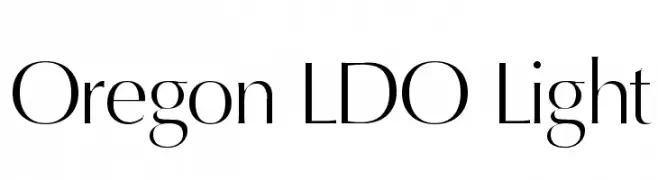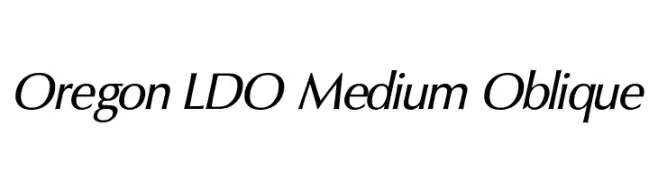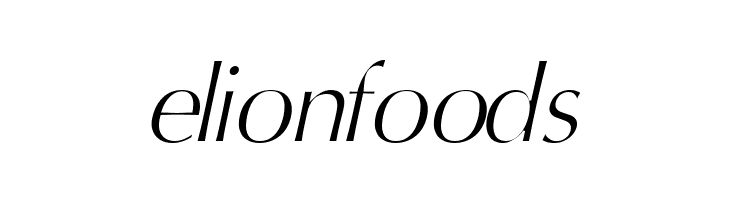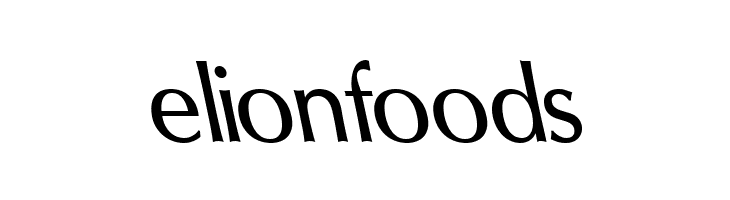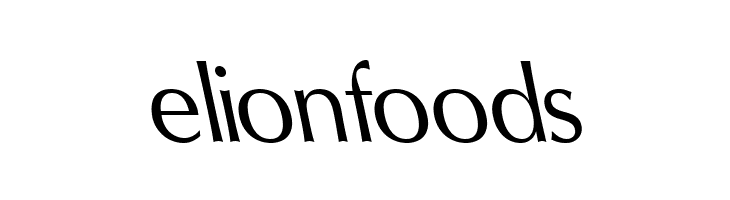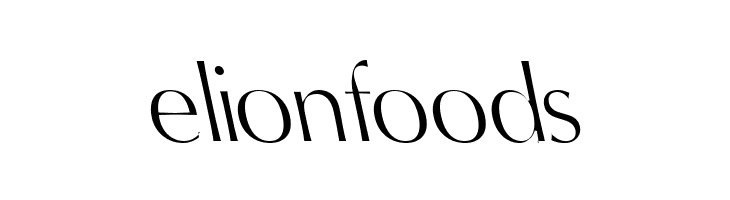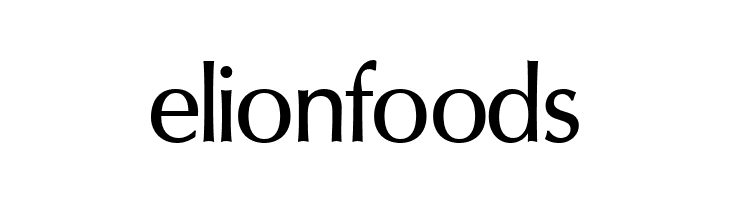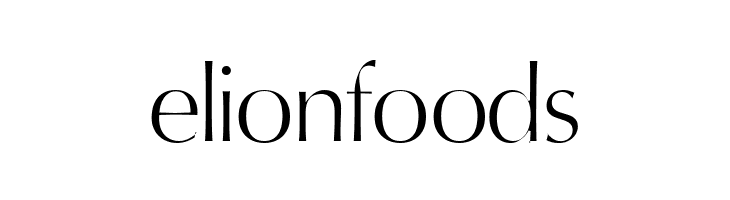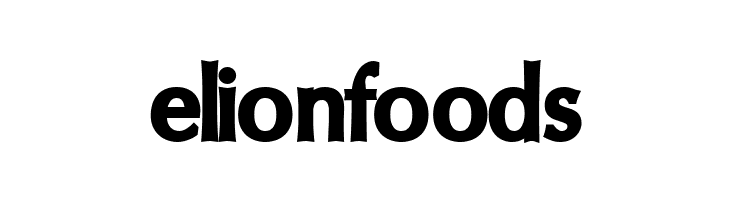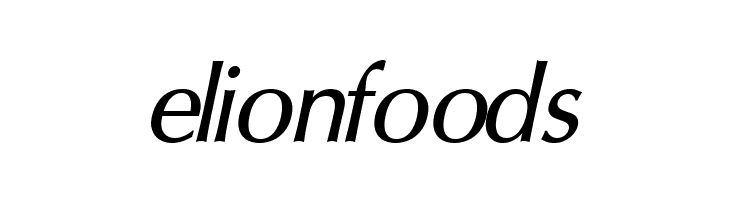
A modern, high-contrast font with a sleek and elegant design.
An elegant, light oblique font with sleek, elongated characters.
A modern, elegant font with a light, airy appearance and subtle slant.
A modern, elegant font with balanced proportions and medium weight.
A modern oblique font with smooth, slanted letterforms and moderate contrast.
A modern, slightly slanted font with balanced proportions and clear numerals.
An elegant oblique font with smooth, flowing lines and a modern aesthetic.
A modern, elegant font with a slight slant and subtle contrast, perfect for versatile use.
A bold, slightly slanted font with a modern and dynamic style.
A bold, ultra-black serif font with a dynamic and modern style.